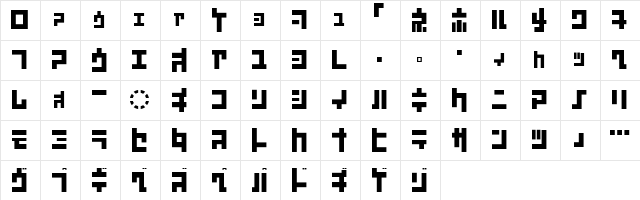
I2koukaku j
Style: j
Design Context for I2koukaku
I2koukaku is a composed and adaptable typeface that performs quietly and consistently across a wide range of design contexts.